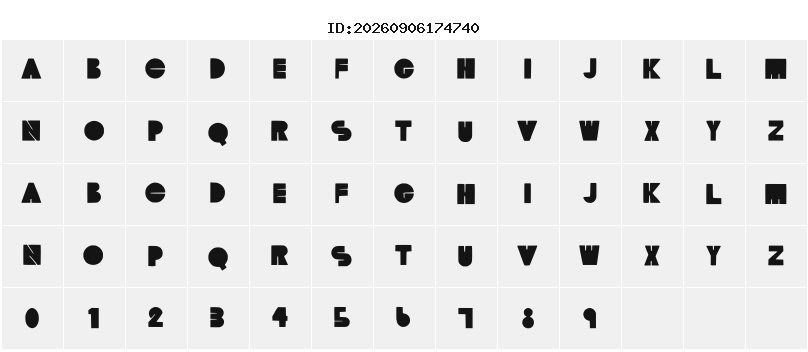
TMTonite Preview
• Font Name: TMTonite
• Font ID: FontForge 2.0 : TMTonite : 6-12-2012
• Full Font Name: TMTonite
• PostScript Name: TMTonite
• Character Count: 140
About TMTonite.ttf
TMTonite.ttf is a modern, elegant sans-serif font designed for ultimate readability and visual harmony. Perfect for branding, headlines, web design, and print materials.